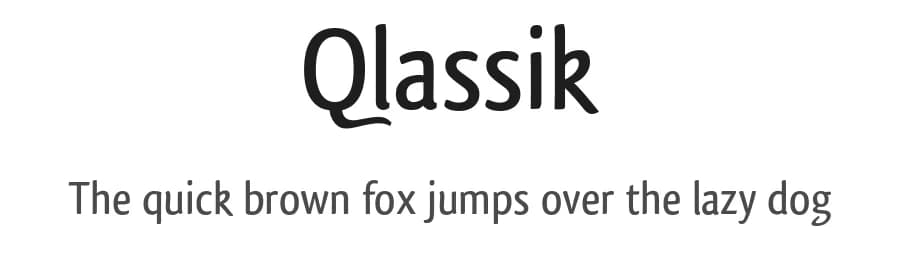
About Qlassik Font
Qlassik is a sans-serif font designed by Dimitri Castrique. It includes 320 glyphs, a medium weight, TTF (TrueType) format, and 224 languages. Qlassik is free to download; check the license details on this page before commercial use. Sans-serif fonts like Qlassik work best for clean body text, user interfaces, branding, and modern layouts.
Qlassik Font is a versatile sans-serif font that works for both headings and body text. Pair it with a contrasting serif or slab serif font to add visual interest and a clear distinction between titles and body copy.